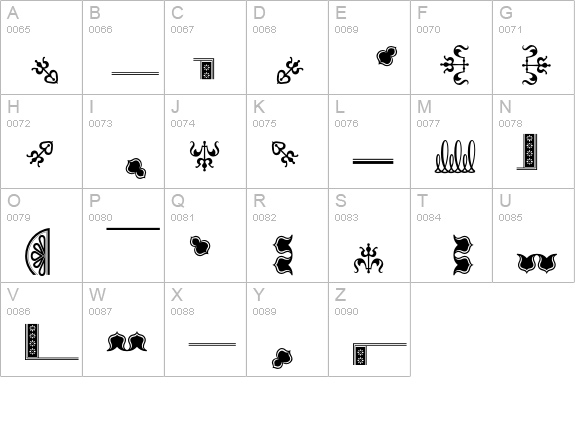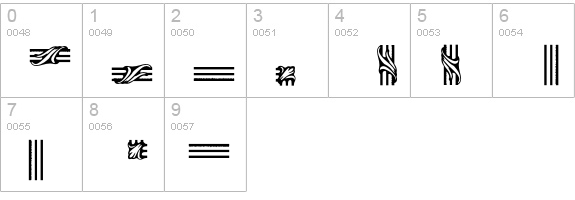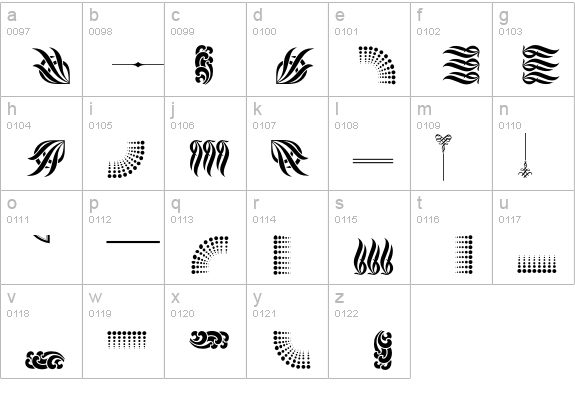
BordersOrnamentsP02 Font Details
BordersOrnamentsP02 font is a beautiful and intricate decorative typeface that adds a touch of elegance and sophistication to any design project. This font features a variety of ornamental borders and elements that can be used to embellish text, frames, and other graphic elements. With its intricate details and classic style, BordersOrnamentsP02 font is perfect for creating invitations, greeting cards, posters, and more. The best part about BordersOrnamentsP02 font is that it is completely free to download at FontsMarket.com. This means that you can easily access this stunning font and use it in your projects without any cost. Whether you are a professional designer or just looking to add a special touch to your creations, BordersOrnamentsP02 font is a versatile and elegant option that is sure to impress. Download it today and elevate your designs with its timeless charm and beauty.